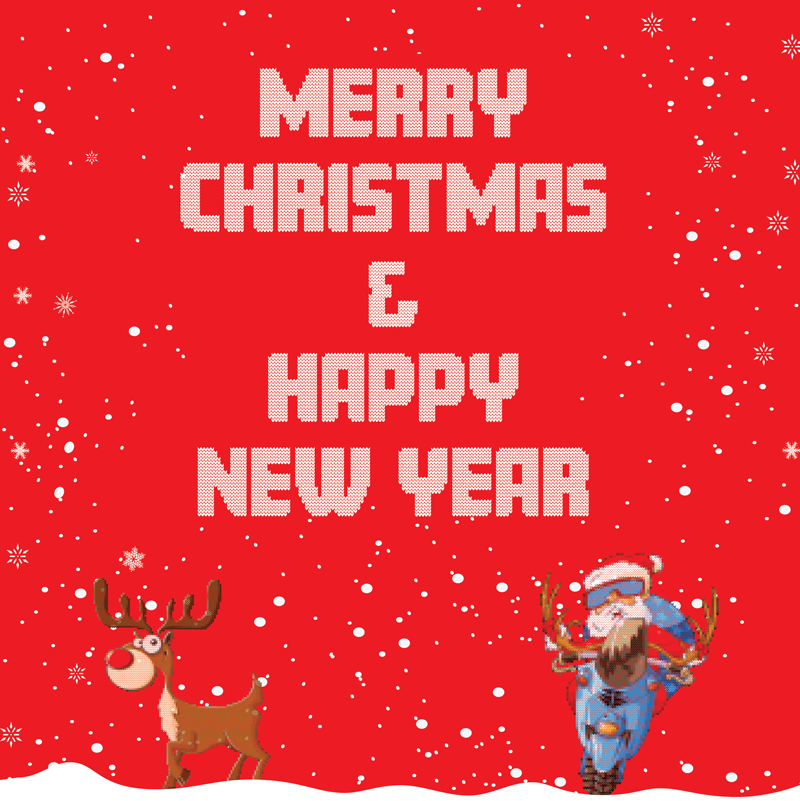
Font name: | Christmas Knitted |
Author: | Jacob Johnson |
Note by Jacob Johnson | |
This Open Type Font was created in Ugly Christmas Sweater fashion. It contains all capital letters, numbers 0-9, and symbols !, @, $, &, (, ), ?, ", ' If you would like to use this font commercially please contact me at rhb4077@yahoo.com Thank You, Enjoy! |